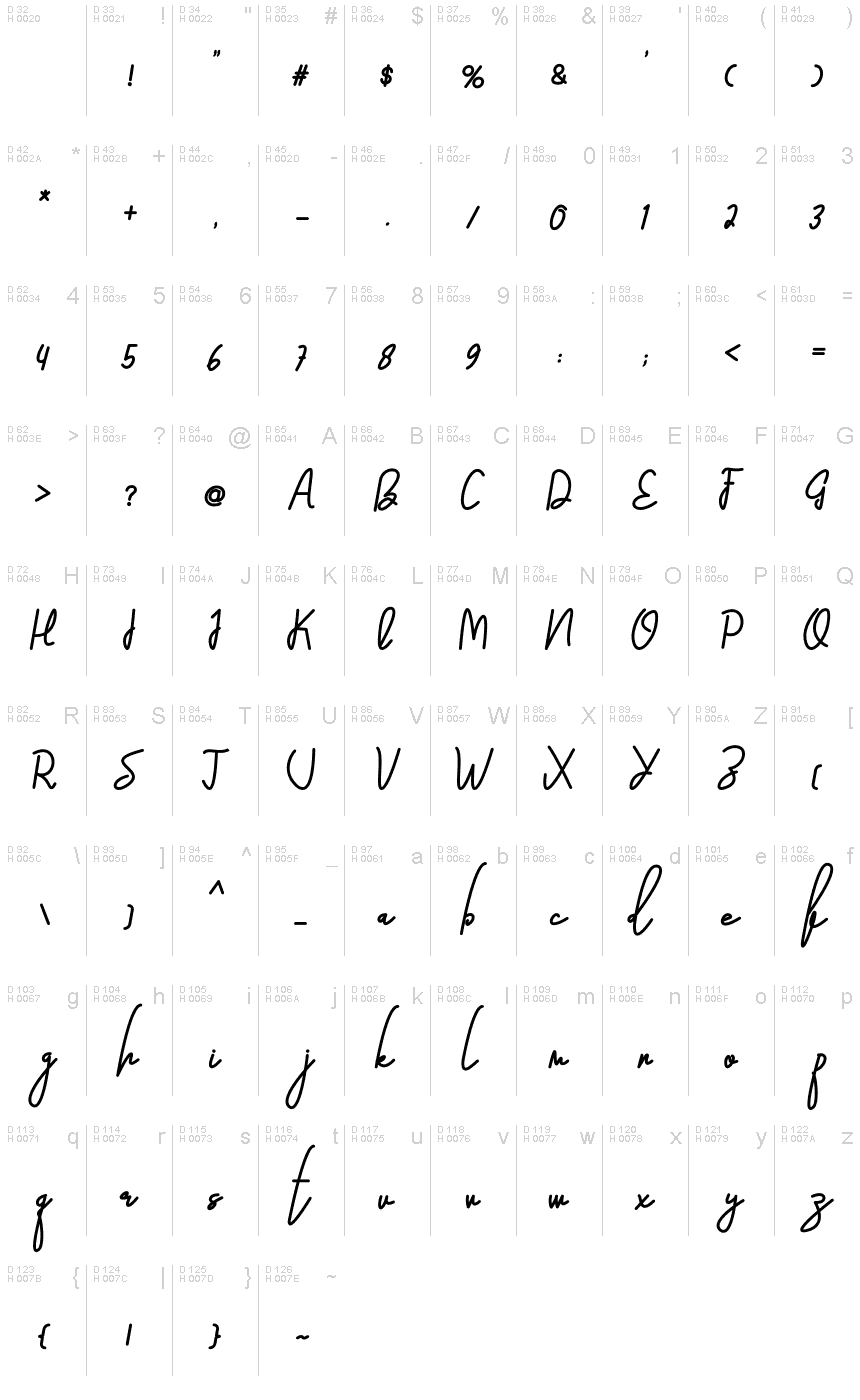
Camping
Camping, the delightful creation by Design Vector10, is a captivating handwritten font that adds a touch of whimsy to any project. With its semi-light weight and semi-condensed width, this versatile typeface is perfect for everything from children's book covers to rustic wedding invitations. Its playful strokes evoke a sense of adventure and nostalgia, making it an ideal choice for outdoor-themed designs such as camping gear logos or travel blogs. Let Camping ignite your creativity and bring your projects to life with its charming character appeal.